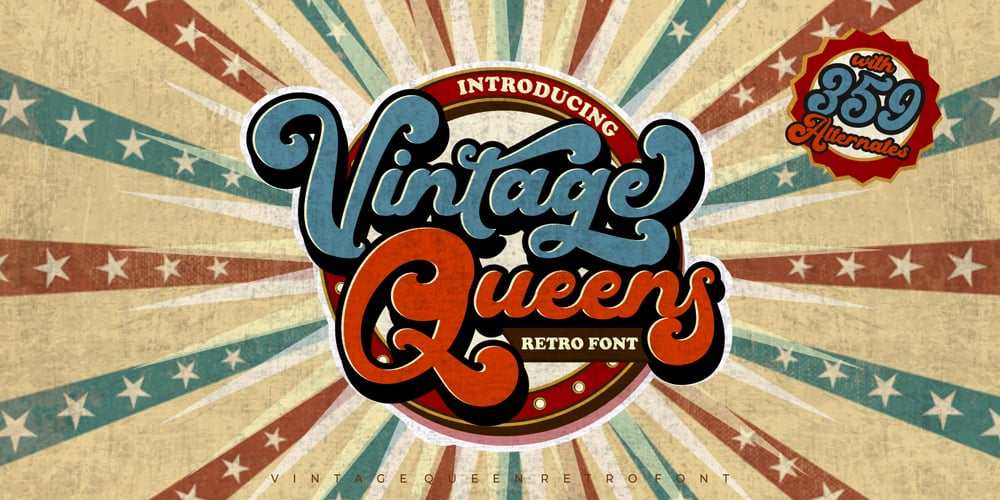
Vintage Queens Font Family was designed by Putra Novembria Candra Kusuma and published by Putracetol. Vintage Queens contains 1 styles and family package options. Introducing a new vintage bold script called Vintage Queens. It is inspired from retro typography and lettering in the 70’s and 80’s combine with bold typography style. With a total of 534 glyphs with 359 alternate, you can make letter combinations for lettering with a lot of options. Includes OpenType feature with many alternates and swashes, helping you to make great lettering. Vintage Queens best uses for Logotype, heading, cover, poster, logos, quotes, product packaging, header, merchandise, social media & greeting cards and many more. This font is also support multi-language. To access the alternate glyphs, you need a program that supports OpenType features such as Adobe Illustrator CS, Adobe Photoshop CC, Adobe Indesign and Corel Draw.